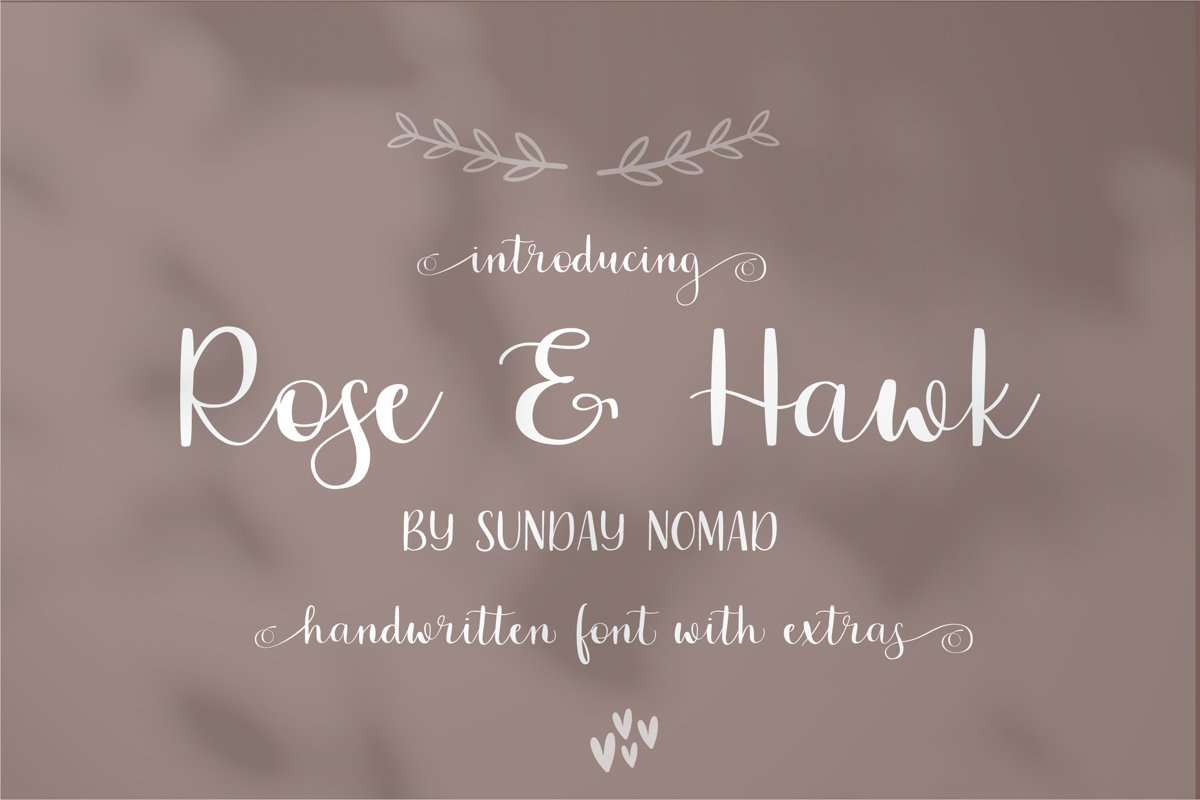
Rose & Hawk
Rose&Hawk
Introducing Rose & Hawk!
Rose & Hawk is a modern calligraphy script with plenty of alternates in both lower and upper case.
As always it supports many European languages!
It is perfect for invitations, branding and more.